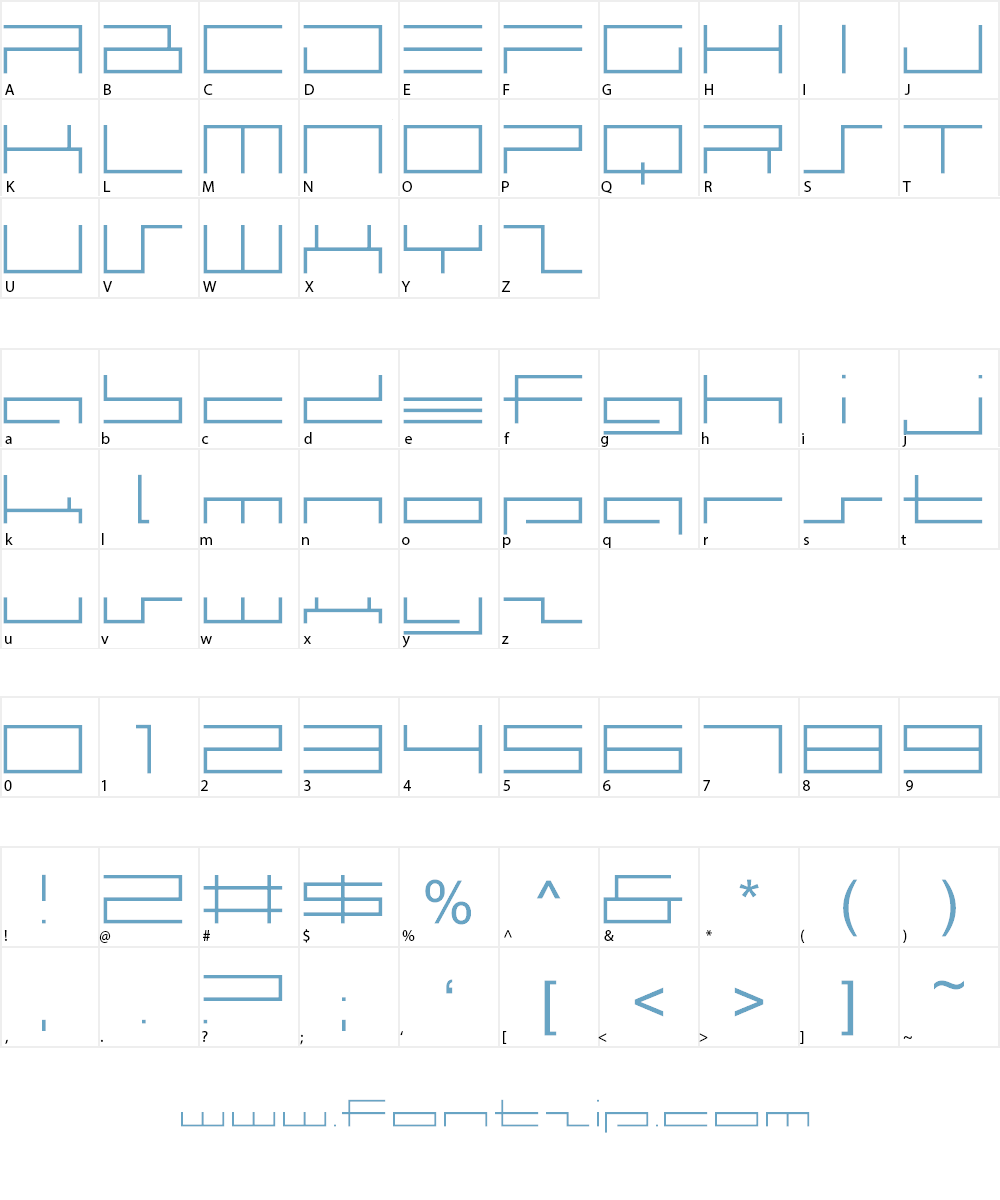
A fontification of the PS2 logo.
I know there's several out there, but this one's accurate.
"How", you say?
I took reference from the "TEST" PS2 consoles, and the console's HDD card.
From there, I just went on.